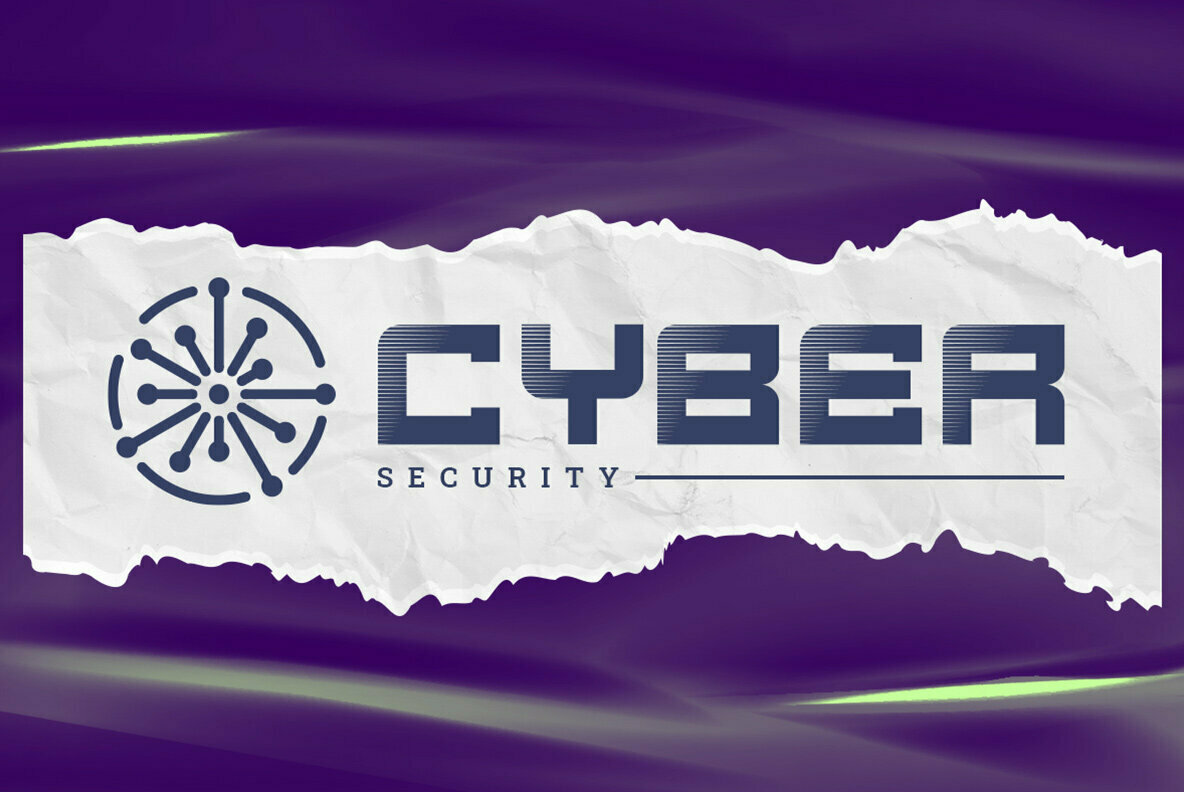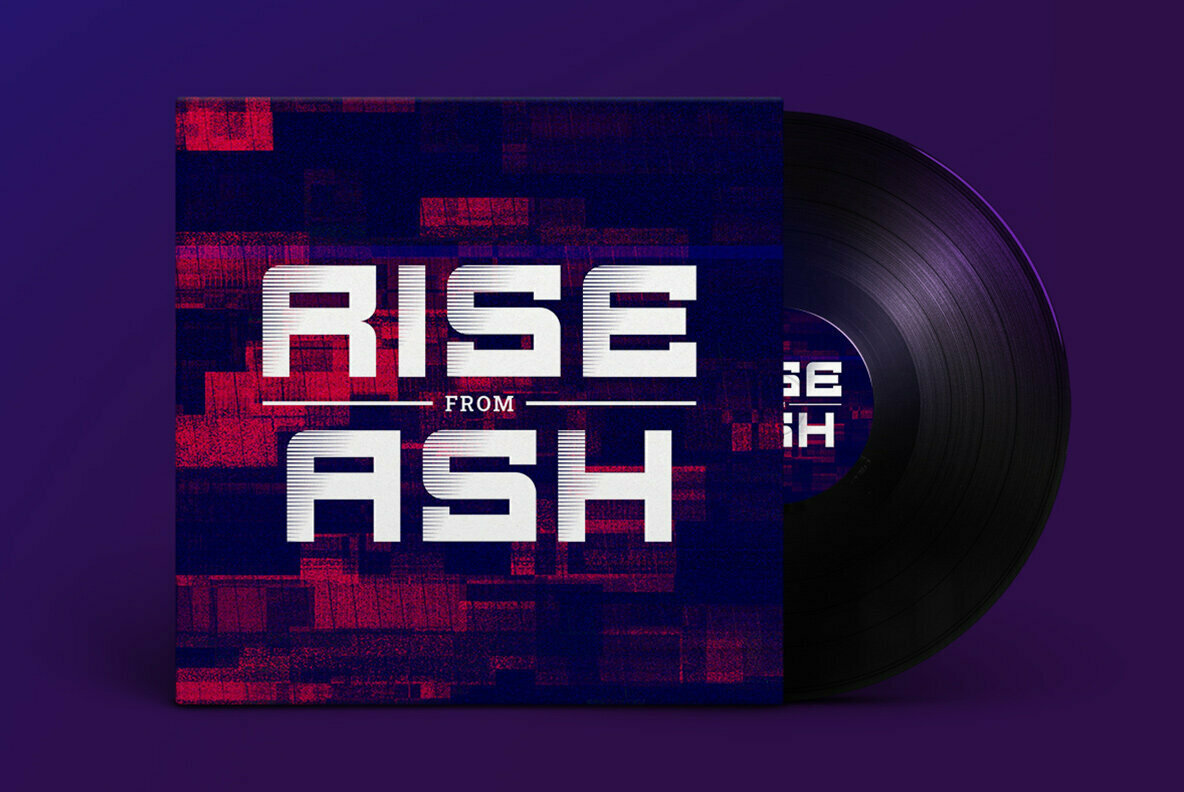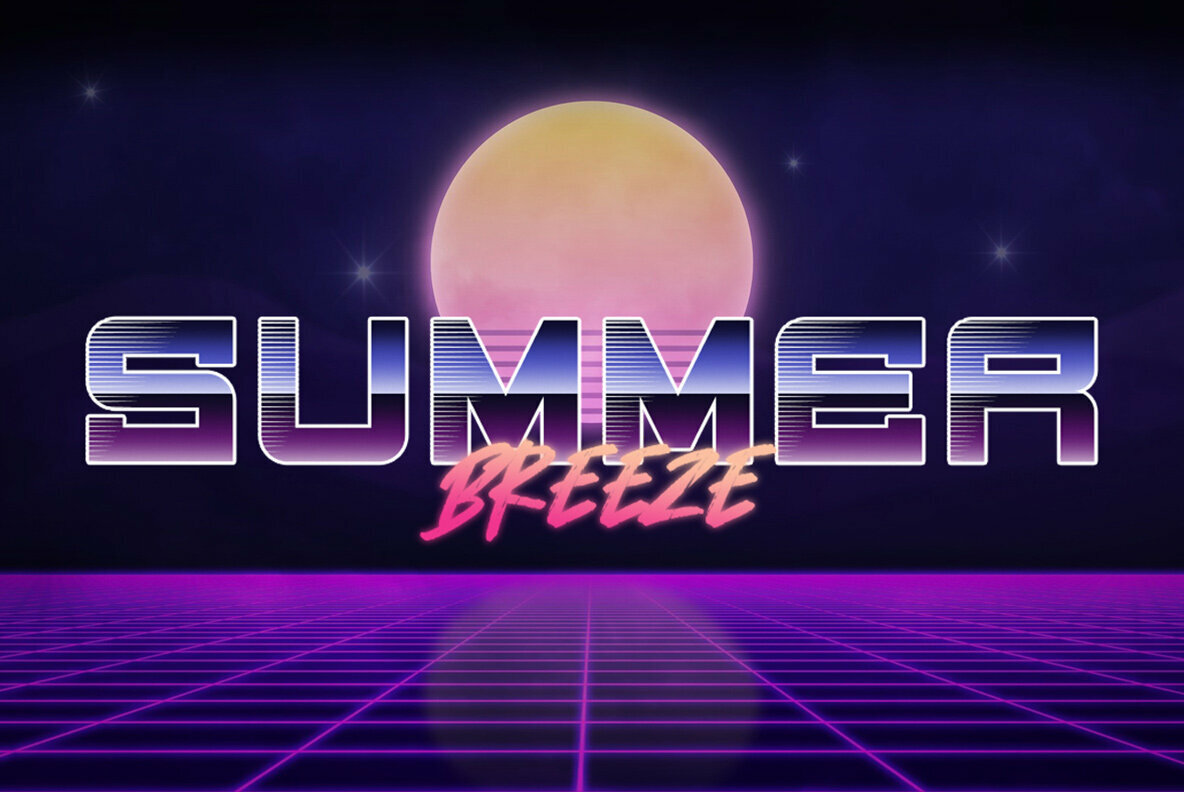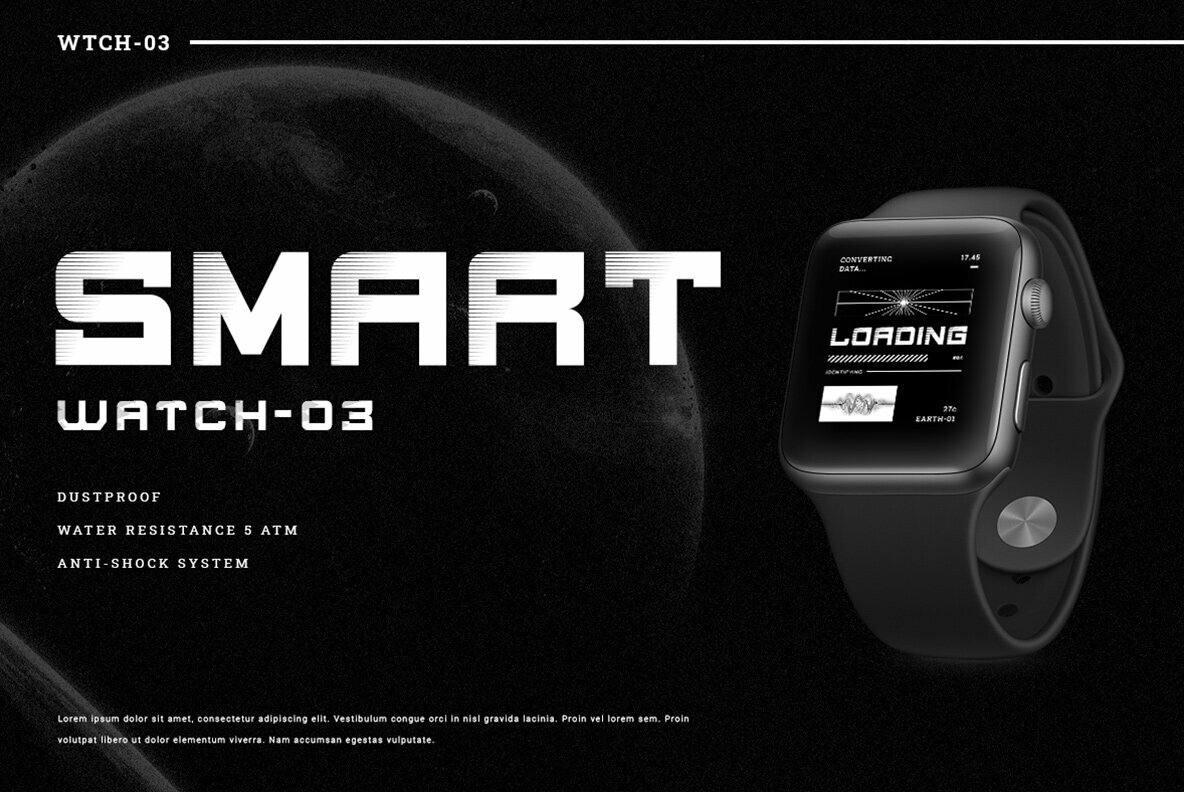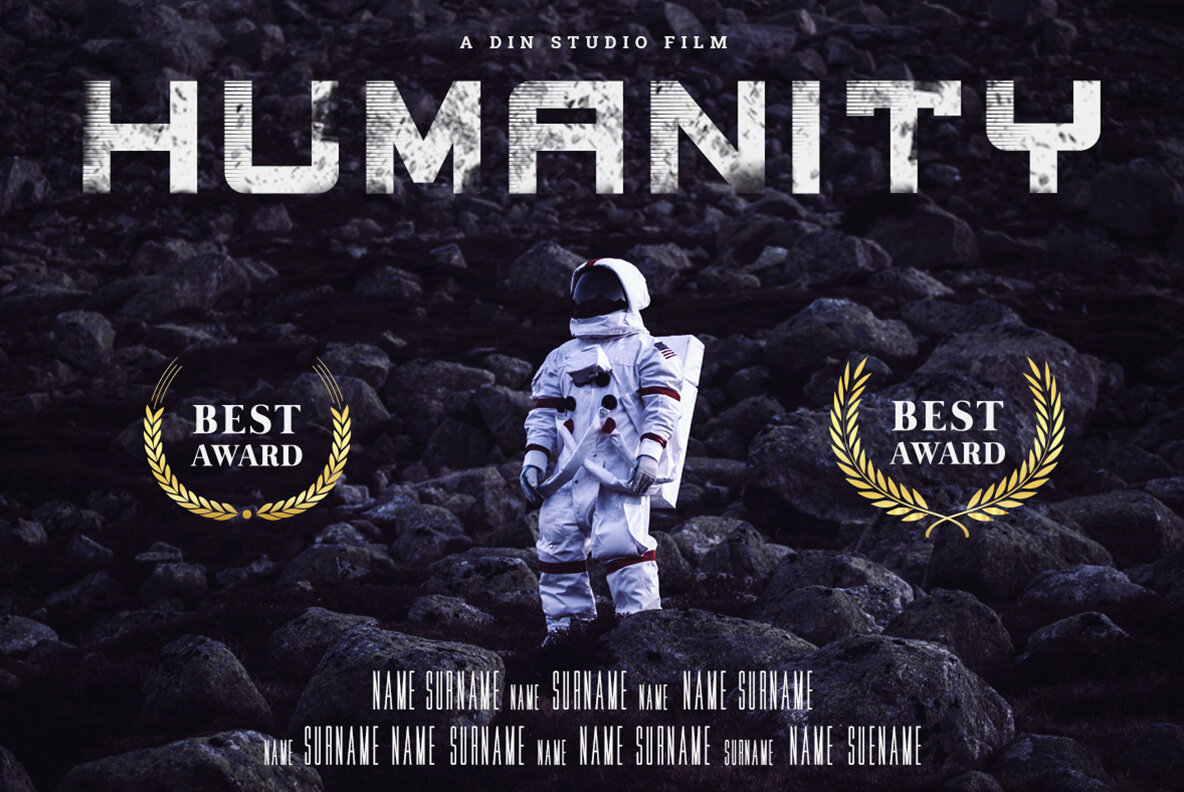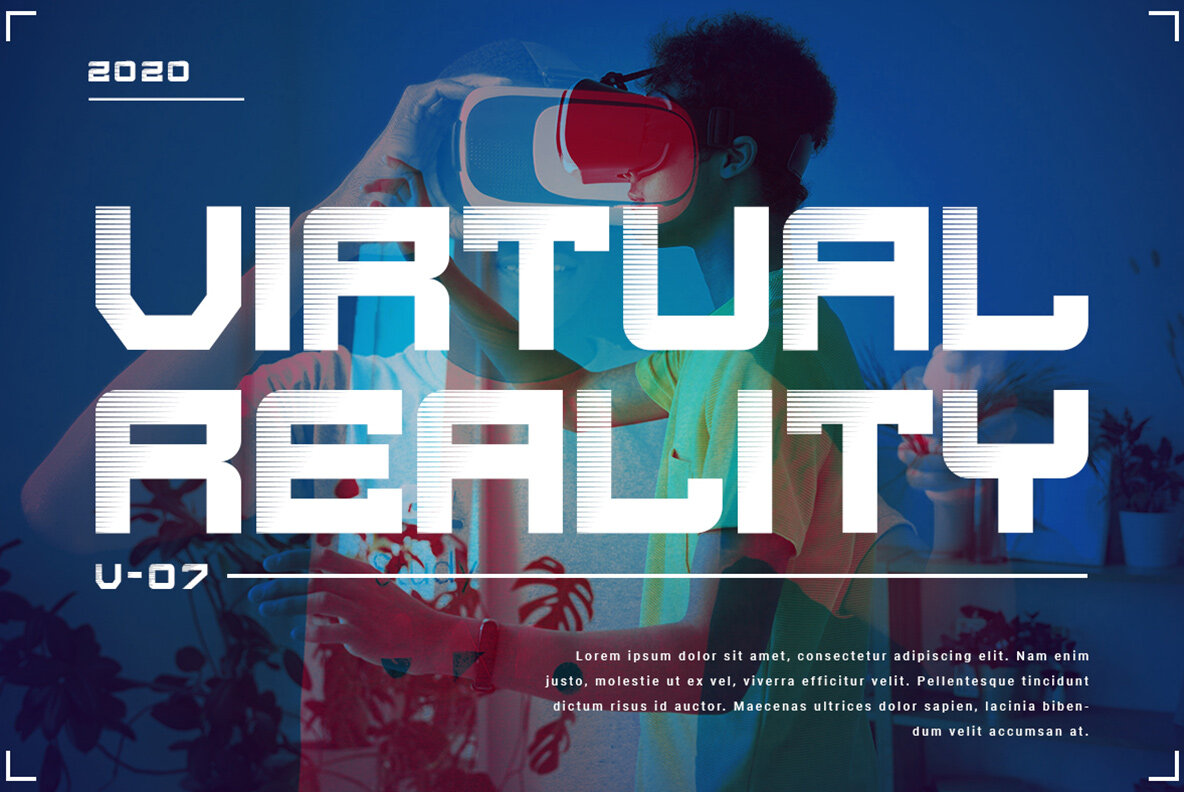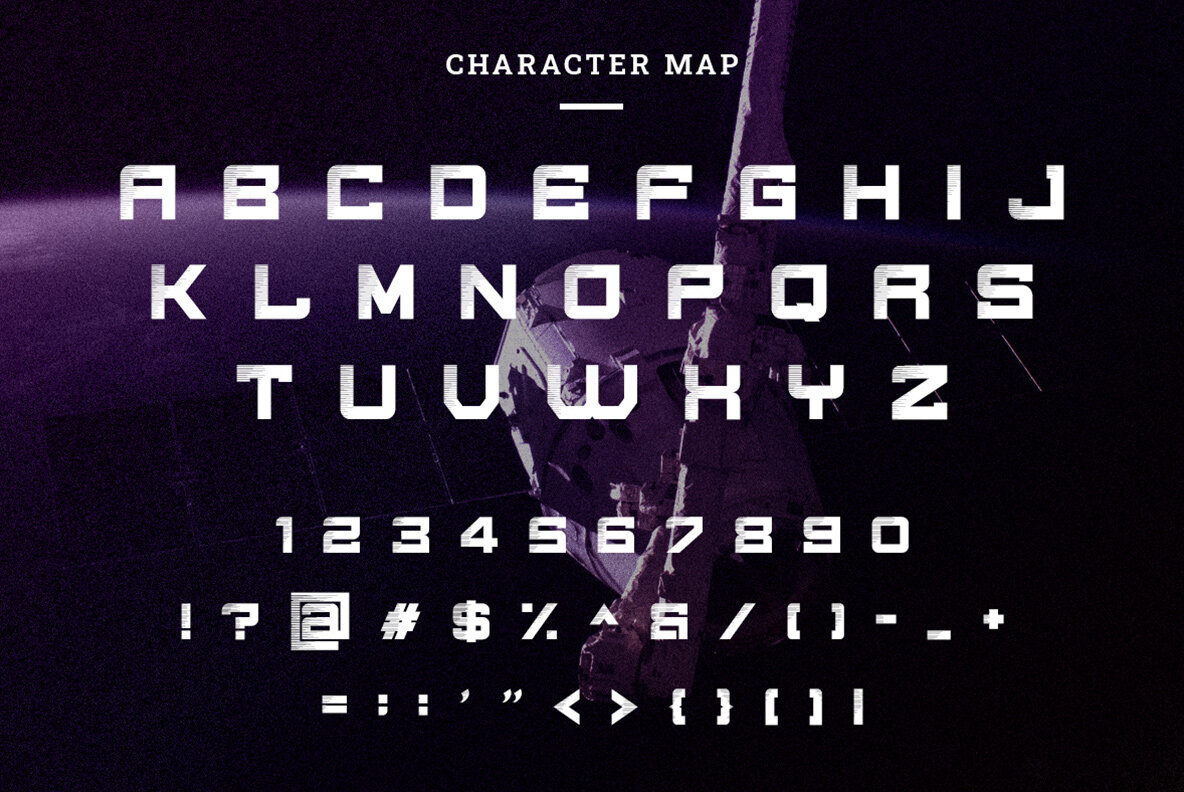
Rockel: A Bold Display Font with Outer Space Inspiration
Rockel by Din Studio presents itself as a striking display font that infuses projects with an extraterrestrial vibe. Its bold style is well-suited to those seeking a distinctive appearance. Ideal for branding projects, t-shirt prints, and more, Rockel provides versatility fused with an authentic touch.
• Multilingual Support – Includes accents for diverse character sets.
• Comprehensive Glyphs – Contains numerals and punctuation adhering to OpenType standards.